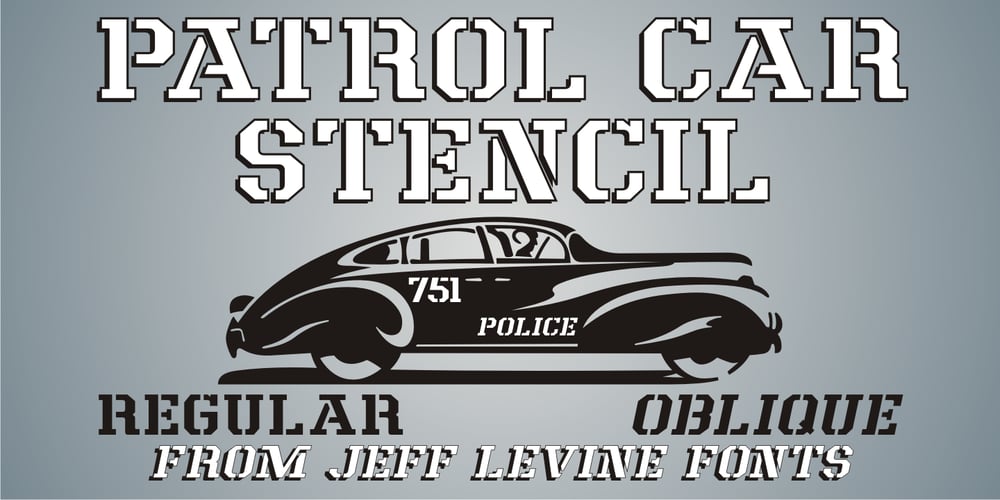
Patrol Car Stencil JNL
Patrol Car Stencil JNL Font Family was designed by Jeff Levine and published by Jeff Levine. Patrol Car Stencil JNL contains 2 styles and family package options. Comic books based on popular characters have been around pretty much since the advent of comic books themselves. An edition of the “Car 54 Where Are You?” series published by Dell (and based on the hit TV show created by Nat Hiken) displayed “Car 54” in a bold hand lettered stencil design on the cover. These few characters became the inspiration for Patrol Car Stencil JNL, which is available in both regular and oblique versions.